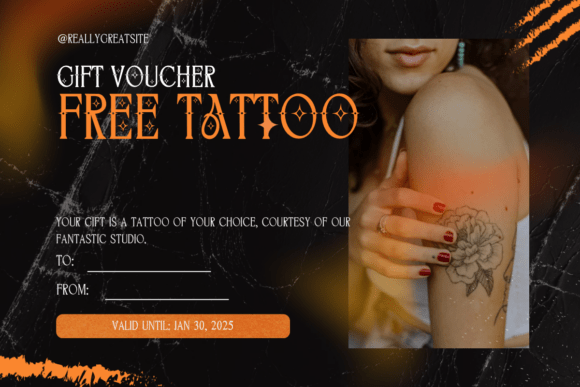
Tattoo Font
Tattoo is a bold and edgy decorative font inspired by traditional ink art and gothic design. With its dramatic serifs, diamond-shaped accents, and clean lines, this font is perfect for tattoo studios, logos, apparel, rock band posters, and alternative branding that demands serious attitude and style.